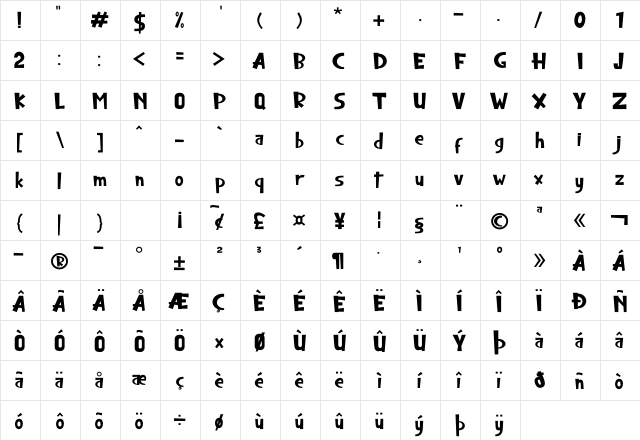
Bloody Buzzett Regular
Design Context for Bloody Buzzett Typeface
Bloody Buzzett leans into the macabre with letterforms designed to disturb and intrigue in equal measure.
Perfect for anything that needs to unsettle — game titles, horror branding, and macabre invitations.
Font Pairing: Pair with a clean neutral sans-serif for body copy to let Bloody Buzzett's character lead without overwhelming the composition.
Pro Tip: Use Bloody Buzzett at larger display sizes for maximum impact. Consider generous tracking to let the disturbing character of each letterform breathe.